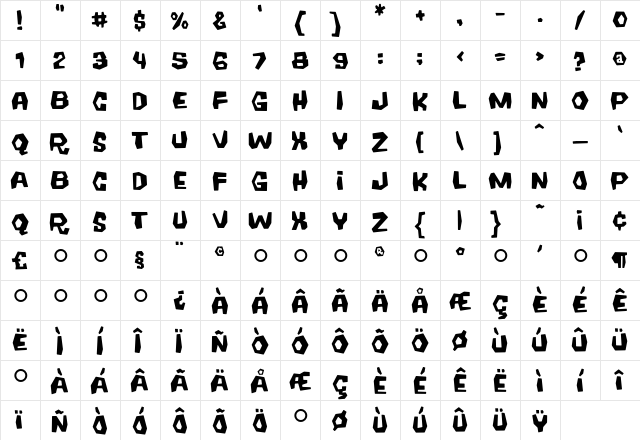
Coffeehouse Regular
Design Context for Coffeehouse Typeface
Coffeehouse is a composed and adaptable typeface that performs quietly and consistently across a wide range of design contexts.
Pro Tip: Pair Coffeehouse with a font of contrasting weight or personality to build a more expressive typographic hierarchy.